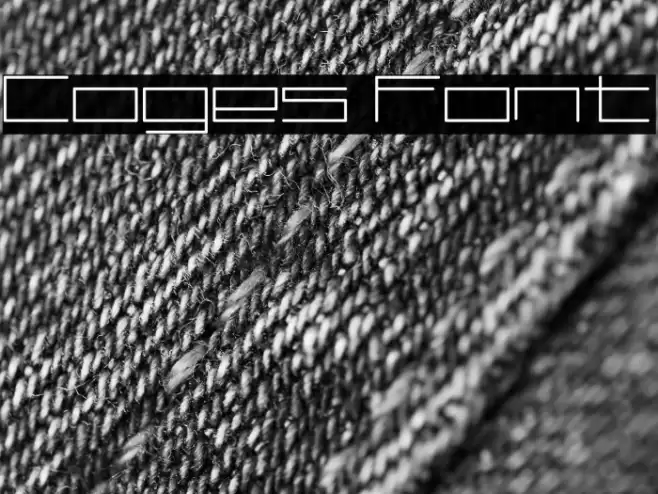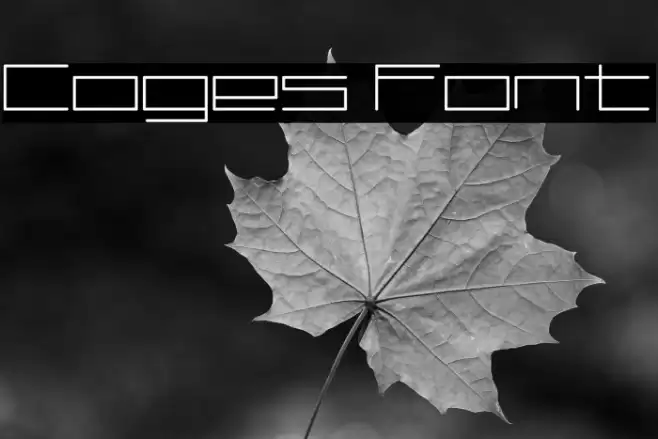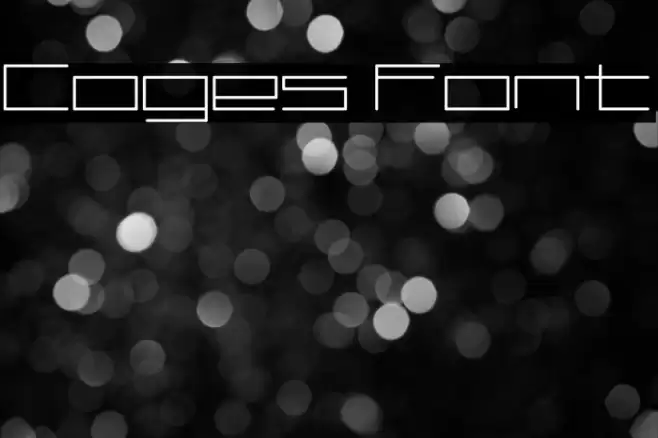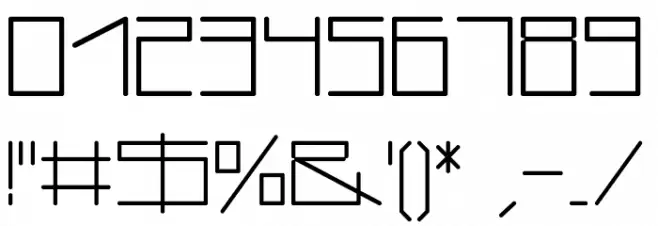
Coges Font
Coges Description
This font features a geometric and minimalist design, characterized by its thin, linear strokes and angular shapes. The uppercase and lowercase letters maintain a consistent height, creating a uniform appearance. The numerals and special characters follow the same linear and angular style, ensuring cohesion across all glyphs. The font's structure is open and airy, with ample spacing between characters, enhancing readability despite its unique design. Its modern and futuristic aesthetic makes it suitable for contemporary projects that require a distinctive and clean look.
A geometric, minimalist font with thin, linear strokes and angular shapes from Regular fonts.
- Proposed Projects: Ideal for modern branding, tech-related designs, futuristic posters, and digital interfaces.
- Weight: Light
- Character Spacing: Wide